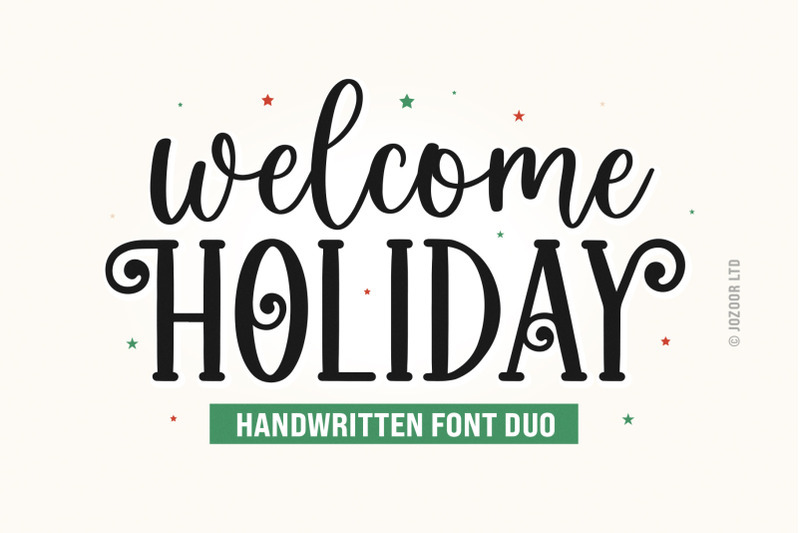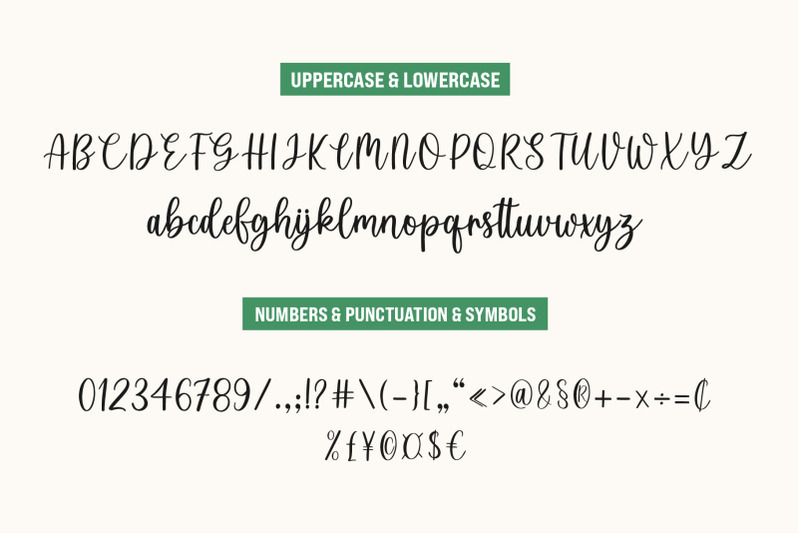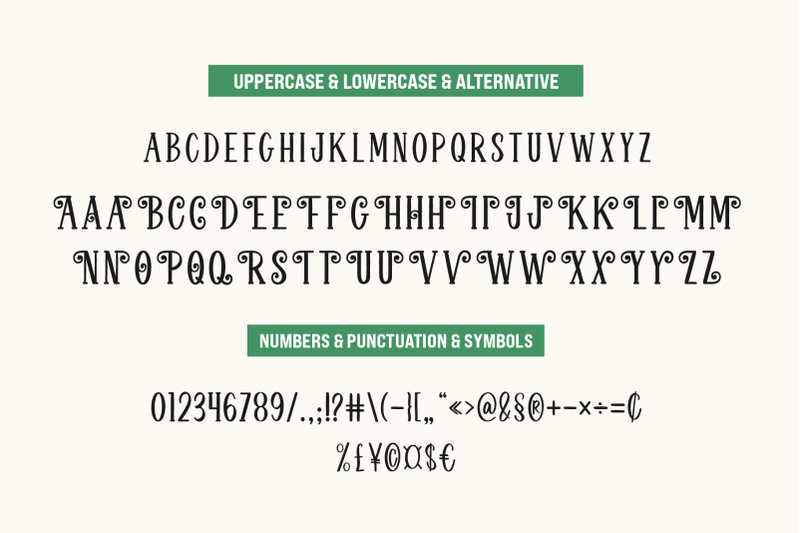
Freebie Wednesday: Free Christmas Font
This week’s freebie on the Hungry Jpeg site is the Free Christmas Font by Jozoor. Welcome Holiday is a duo-styled handwritten, modern, stylish, and flowing font. It has beautiful and well-balanced characters and as a result, it matches a wide pool of designs. Available for free for another 5 days so don’t miss out!